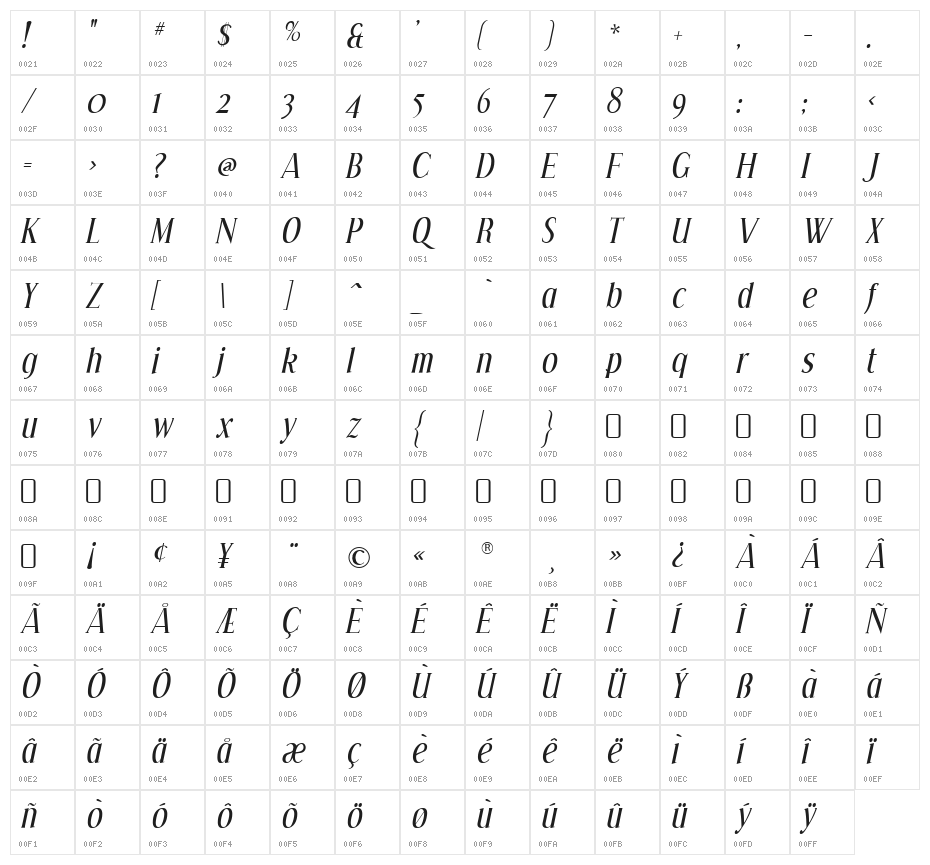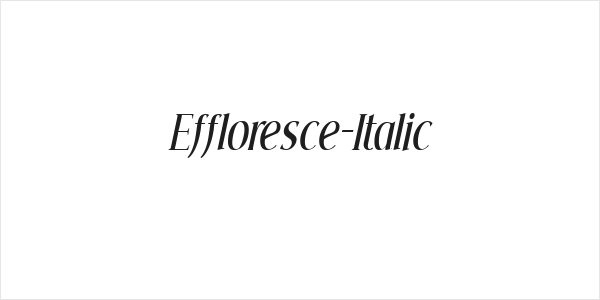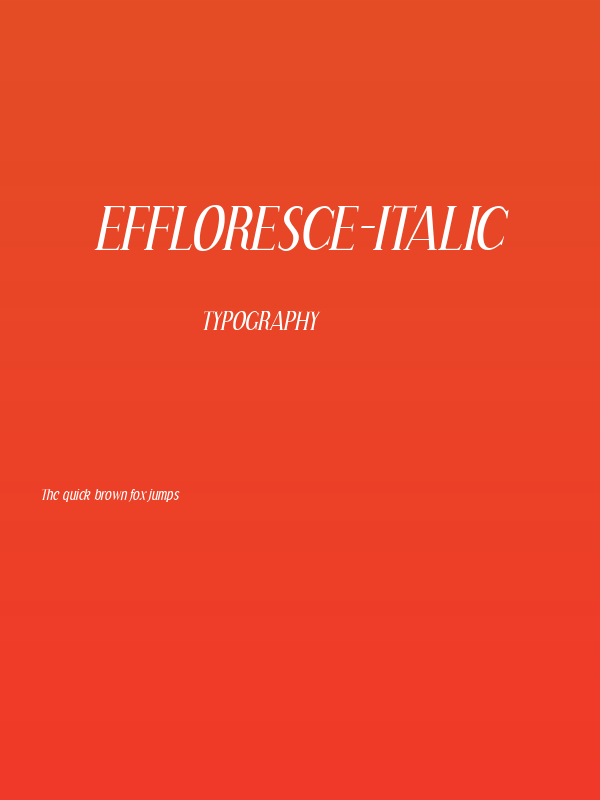
Effloresce-Italic Font
Effloresce-Italic Description
This font features an elegant and sophisticated italic style, characterized by its smooth, flowing lines and slightly condensed letterforms. The strokes are moderately contrasted, giving it a refined and classic appearance. The uppercase letters are tall and graceful, while the lowercase letters maintain a consistent slant, enhancing the overall fluidity. The numerals are well-proportioned, and the special characters are designed to complement the text seamlessly. This font exudes a sense of timeless elegance, making it suitable for a variety of formal and creative applications.
| Proposed Projects | Ideal for wedding invitations, luxury branding, editorial design, and elegant packaging. |